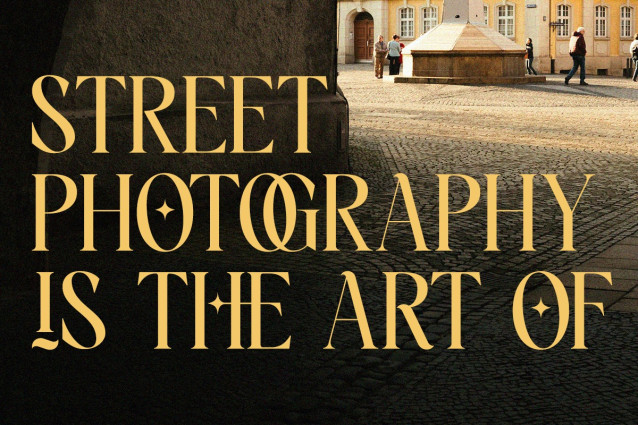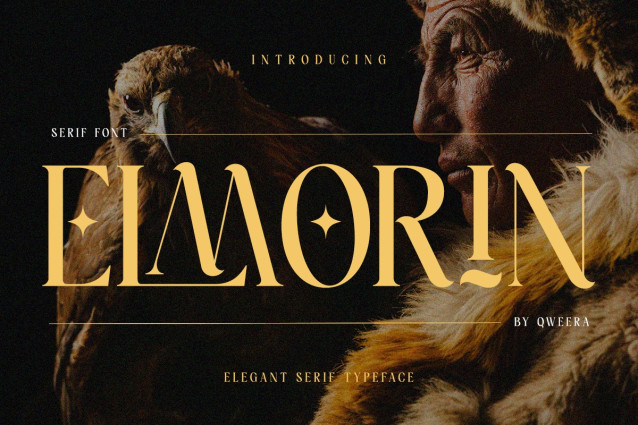
Elmorin Font
Elmorin Font is a refined serif font that blends traditional charm with contemporary finesse. Inspired by timeless editorial typography and classic Roman proportions, Elmorin delivers strong visual identity and subtle ornamental flair—perfect for storytelling brands, luxury packaging, and stylish editorial layouts.
From bold headlines to graceful body text, Elmorin offers versatility with a distinctive personality. Its elegant curves, dynamic contrast, and alternate characters make it ideal for designers seeking a serif that is both classical and modern.